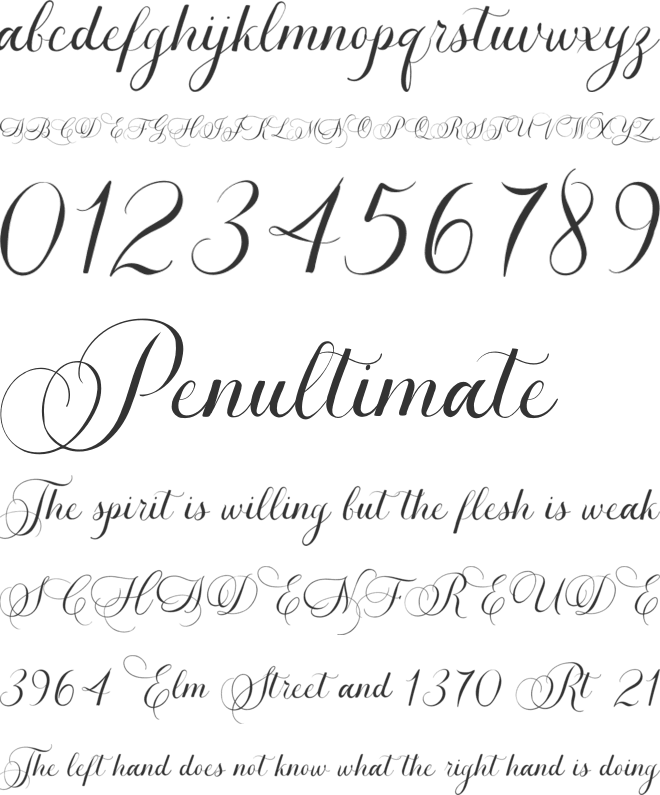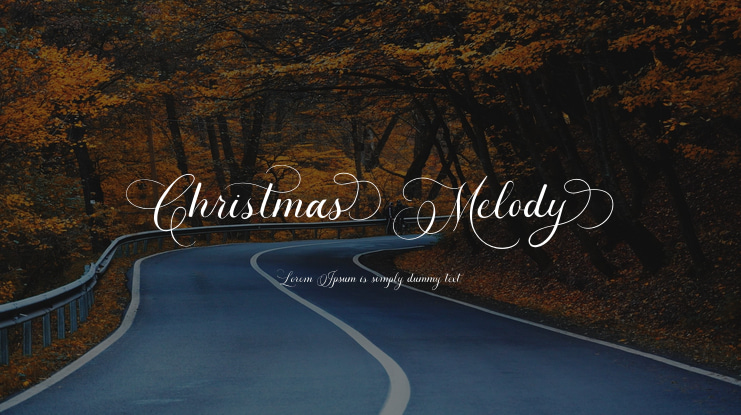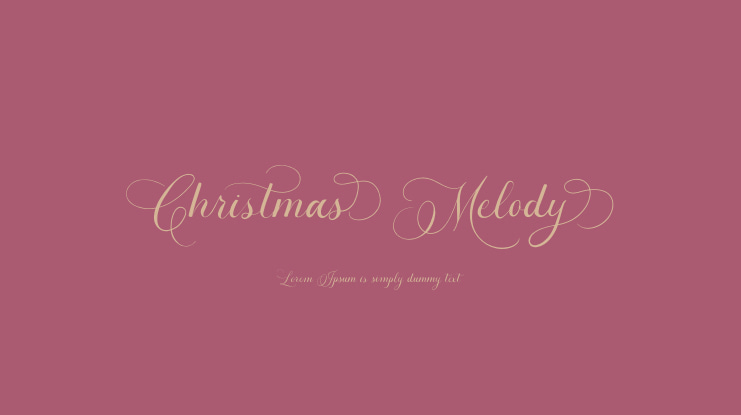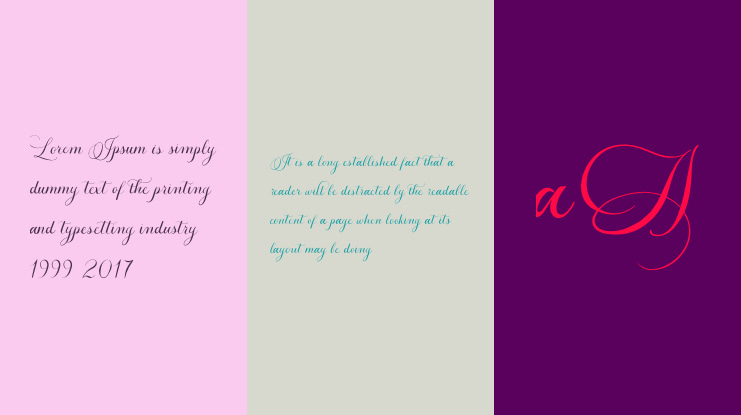
Christmas Melody Font
Risca Anitawati
Christmas Melody is modern calligraphy font made by handwritten with a classic style and a touch of elegance.
Christmas Melody is perfect for red wine label, vodka label, upscale packaging, wedding stationery, invitations, business cards, branding and other projects that require a touch of handwriting and luxury.